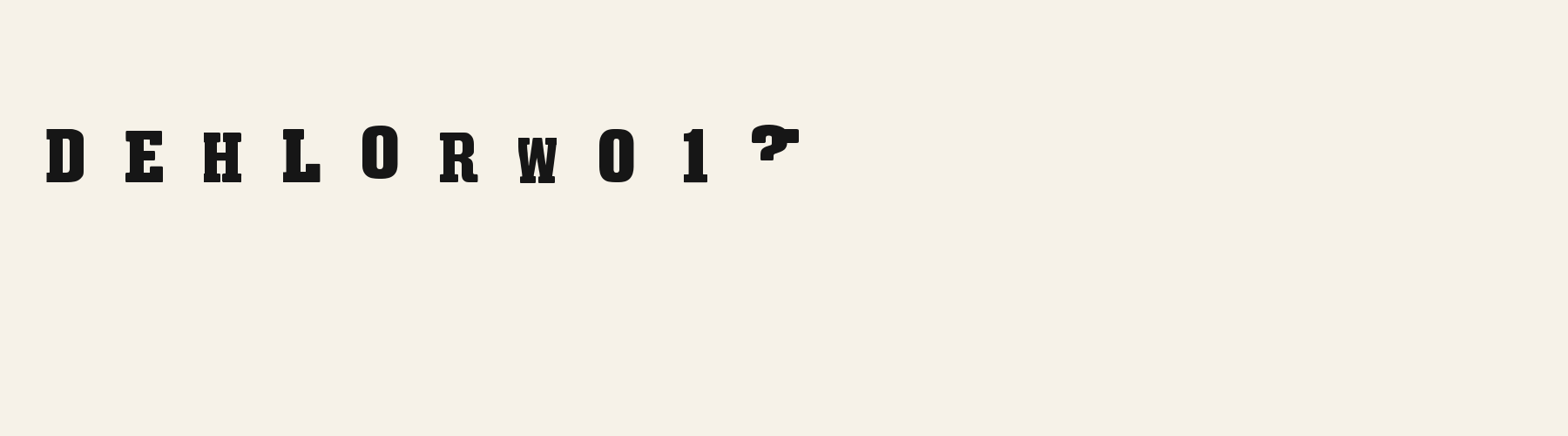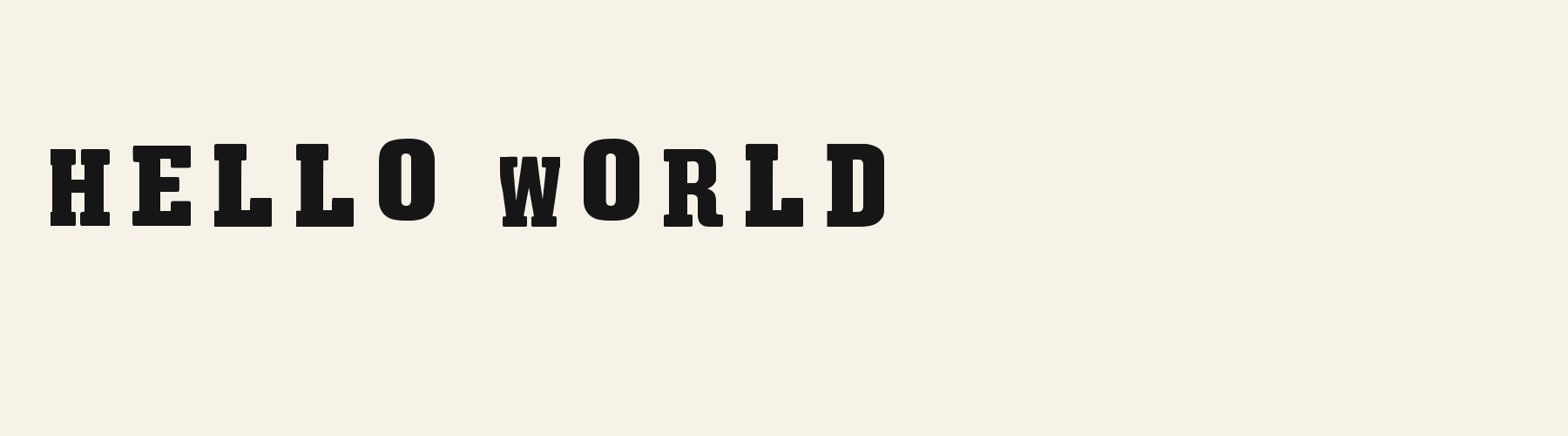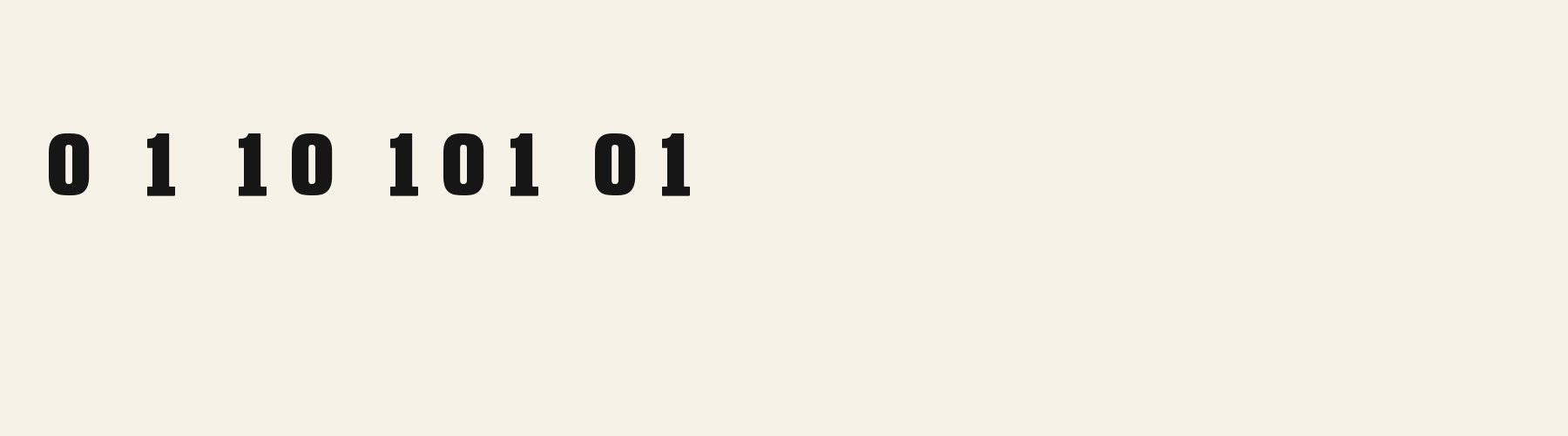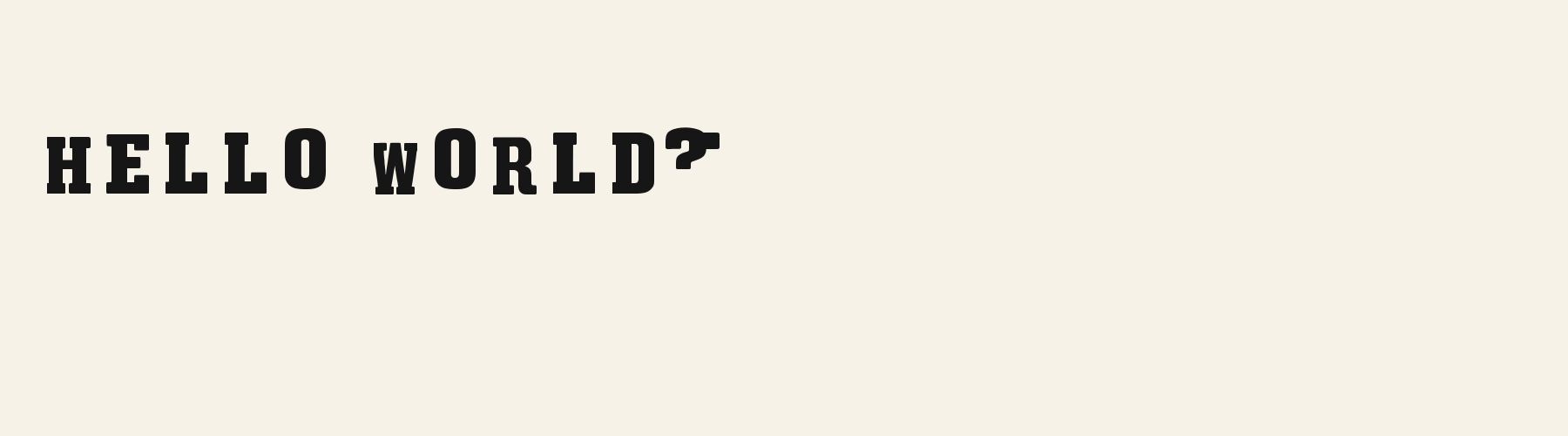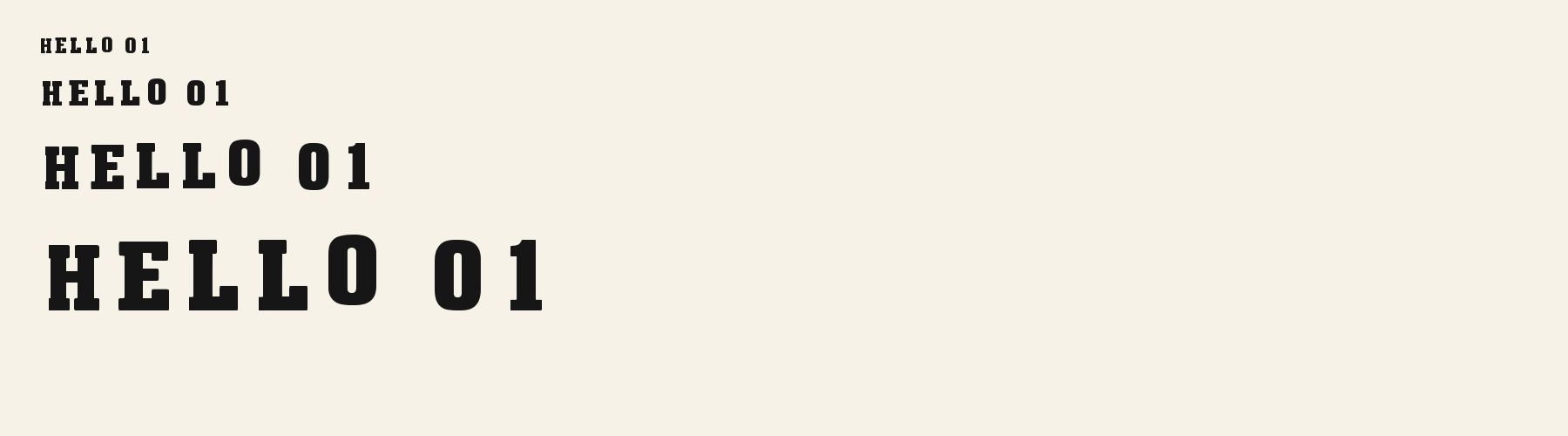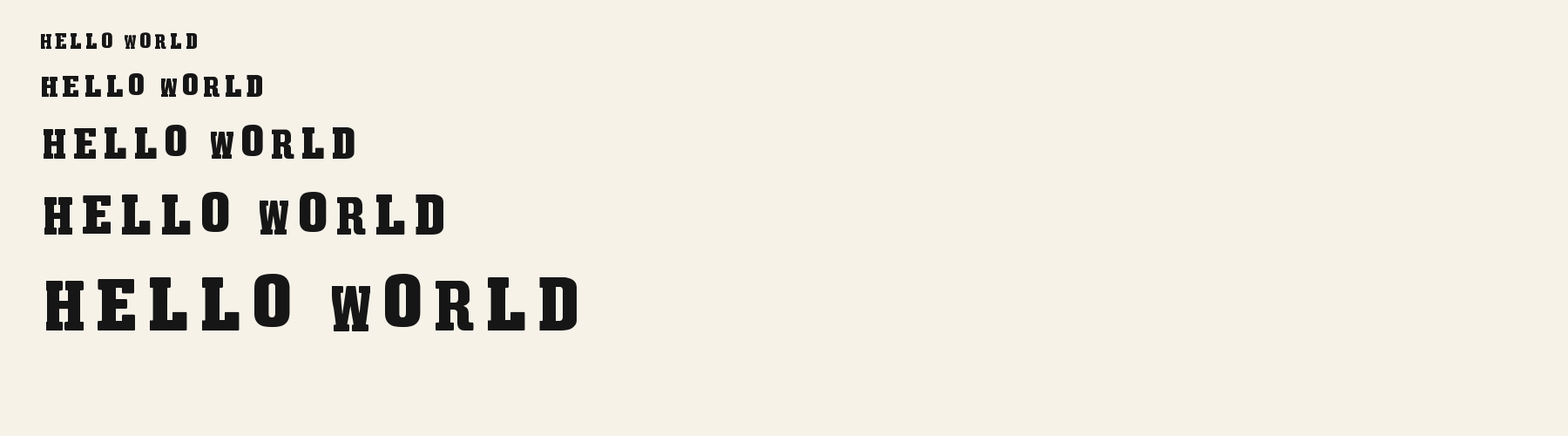
Serif Western Slab Dense Cutout Playbill Font
Serif Western Slab packs thick upright strokes into compact letters, with broad rectangular feet anchoring the line.
Dense Cutout Playbill Letterforms
Serif Western Slab packs thick upright strokes into compact letters, with broad rectangular feet anchoring the line. The O has a rounded outer contour around a narrow vertical counter, so its dark sides dominate the shape. The E uses deep square openings between heavy arms, while the R carries a small upper counter and a short leg that bends outward into a blunt foot. Slightly softened joins keep these blocks from feeling entirely mechanical. The result is forceful, posterlike lettering with a restrained old print character, especially when repeated L feet form a strong baseline.
Inspect repeated L feet, the R leg, and the narrow O counter in your actual wording at smaller and larger previews. Check punctuation and word gaps alongside the heavy capitals. These specimens establish Latin capital shapes; accented Latin and other scripts need separate coverage and rendering checks.
Try this face for short headings or badge names, supported by a lighter sans for descriptions and practical details. Its heavy terminals and narrow counters already supply strong texture, so a companion with open interiors could keep the supporting text visually distinct.
Compare the original spacing with a wider setting. The repeated L feet and broad terminals create a strong horizontal rhythm; added space separates those blocks, while tighter spacing makes the wording feel more like a single dark band.
In this uppercase phrase, Serif Western Slab has compact proportions, narrow vertical counters in O, and a straight H crossbar. Its thick strokes and small internal openings give the words a dense, compressed presence.
In the same uppercase phrase, Lens Counter Slab spreads into broader rounded forms. A continuous black bridge divides each O counter into upper and lower openings, while the H crossbar swells into a lens shape. Those interior shapes give the lettering a more patterned rhythm.
Poster. Thick upright strokes and broad feet give a short event title a firm silhouette with an old print mood. ROASTED COFFEE
Product label. Compact letters and small enclosed counters make a product name feel substantial within a simple packaging layout. TRAIL HOUSE
Logo or badge. Broad terminals and sturdy verticals give a short badge name a cohesive shape, especially within a plain border.
Its lowercase is tall: the x-height is 74.3% of the cap height, against a median of 69.6% for serif fonts, taller than 42 of the 51 other serif fonts. Ascenders on b, d, h, k and l line up with the capitals (101% of their height), and descenders on g, j, p, q and y drop 16.1% of the cap height below the baseline, the shallowest of all 52 serif fonts. Serif Western Slab runs 6% narrower than the median for serif fonts: an average lowercase letter, spacing included, is 78.5% as wide as the capitals are tall (an average capital, 82.2%). The o is close to a circle, 0.93 times as wide as it is tall, and M is the widest capital, at 1.09 times the width of H. The O stops 2.7% of the cap height short of H and dips 1.1% below the baseline.
The letters stand upright, leaning less than 2.5° either way. Vertical stems measure 27.9% of the cap height, the heaviest of all 45 serif fonts. Ink covers 53.4% of each lowercase letter's box (its advance width by the cap height), the darkest of all 52 serif fonts. Strokes change thickness with direction: the sides of o and O are 1.7 times as thick as their tops and bottoms.
Its 95 characters include 52 Latin letters, plus 43 figures, punctuation marks and symbols; there are no accented Latin letters beyond A to Z. The word space measures 45.9% of the cap height, and the blank space either side of a lowercase letter takes up 12.6% of its width. The font carries no kerning, so spacing comes from each letter’s own side bearings. The figures have different widths, so columns of numbers set in Serif Western Slab will not line up exactly.
- Geo Sans Round (sans serif), Ledger Sans (sans serif) and Heartline Outline (script) are drawn on a different letter structure, so Serif Western Slab can carry the headings while one of them sets the text. Each has its own page with a type tester for trying the pair.
- In the same serif style: Atelier Light (lighter strokes, lower x-height); Headline Slab (38% wider, taller x-height); Pointe Serif (lighter strokes, lower x-height).